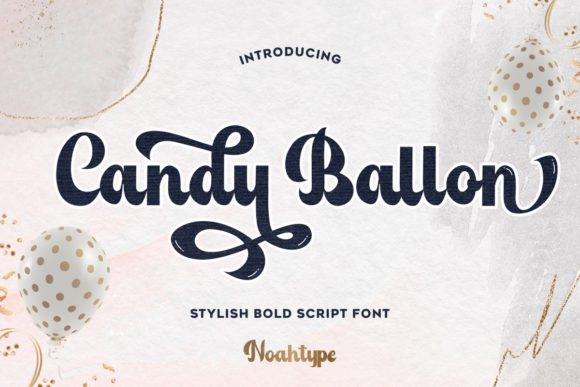
The Sweet Spot: Discovering the Charm of Candy Ballon Font
I’ll never forget the time I was working on a project for a client who wanted a custom birthday party invitation. The theme was a colorful candyland, and I was determined to make it perfect. As I scrolled through font after font, I just couldn’t find the right fit. That was until I stumbled upon Candy Ballon Font. It was love at first sight! 🎉
This stylish, distinct, and uniquely designed handwritten font has been a game-changer for my design projects. And today, I’m excited to share its charm with you. Whether you’re a designer, crafter, or creative hobbyist, you’ll love the versatility and personality that Candy Ballon Font brings to the table.
So, what makes Candy Ballon Font so special? Let’s dive into the good stuff! 😊
- ✨ PUA encoded: This means you can access all the glyphs and swashes with ease, giving you endless creative possibilities.
- ✅ Easy to use: Whether you’re a design newbie or a seasoned pro, you’ll appreciate how intuitive it is to work with Candy Ballon Font.
- 🎨 Highly versatile: From party invitations to branding projects, this font adapts to any style or theme.
Now, no font is perfect, and Candy Ballon Font has a few minor quirks:
- 🤔 Limited multilingual support: While it covers a range of languages, it’s not exhaustive. Make sure to check the supported languages before using it for a project.
- ⚠️ Some swashes may not work in all applications: This is more of a technical limitation than a font flaw. But don’t worry, it’s still easy to work around.
If you love Candy Ballon Font, you might also enjoy these similar fonts:
- Lobster: A elegant, cursive script font perfect for headings and titles.
- Pacifico: A beautiful, modern script font great for branding and advertising.
- Great Vibes: A fun, energetic script font ideal for party invitations and social media graphics.
- Alex Brush: A lovely, handwritten font suitable for creative projects and crafts.
The Story Behind Candy Ballon Font
Ever wonder how fonts are created? While the story behind Candy Ballon Font might be fictional, it’s inspired by the real-life process of font design:
Meet Emma, a talented type designer with a passion for handwriting fonts. Emma drew inspiration from childhood memories of blowing balloons at parties and the colorful, whimsical world of candy. She spent hours perfecting the curves and swashes of Candy Ballon Font, aiming to create a typeface that would bring joy to designers and their projects.
| Q: Is Candy Ballon Font suitable for body text? | A: While Candy Ballon Font is beautiful, it’s best suited for headings and titles due to its decorative nature. For body text, consider a more readable font. |
And there you have it – a comprehensive look at Candy Ballon Font, from its charming design to practical applications. Whether you’re creating party invitations, branding materials, or just experimenting with new fonts, Candy Ballon Font is sure to add a touch of whimsy and style to your projects. So go ahead, give it a try, and see the sweet results for yourself! 🎂